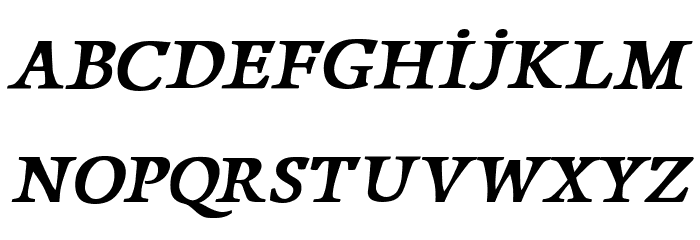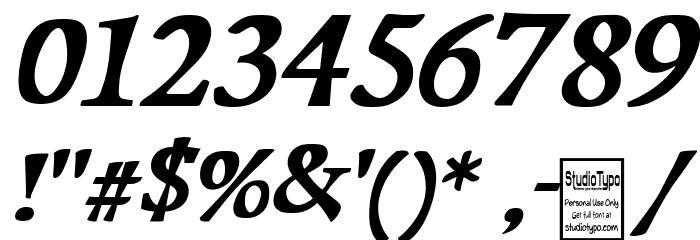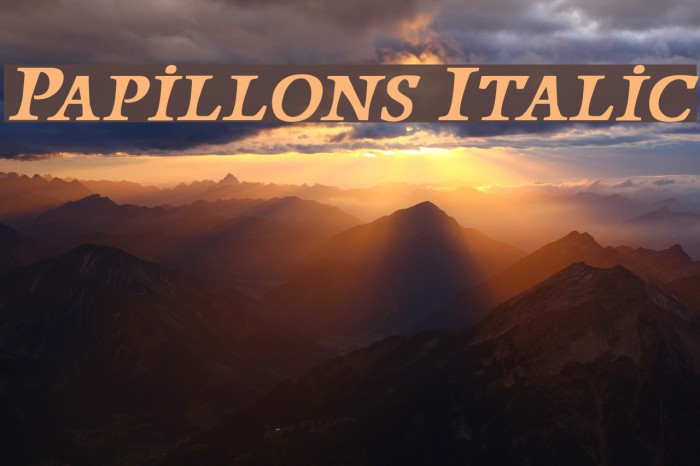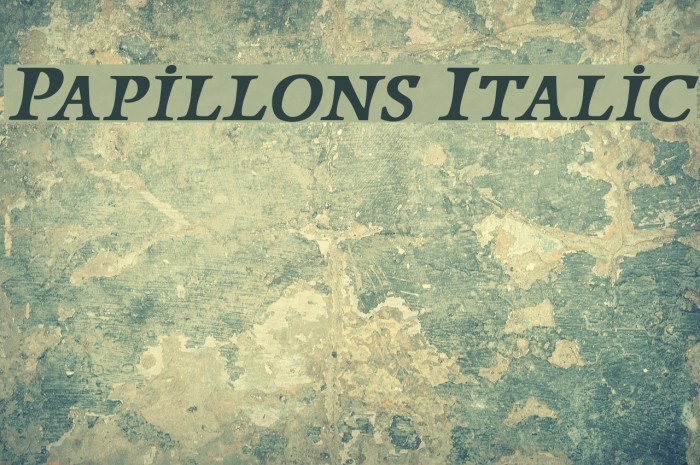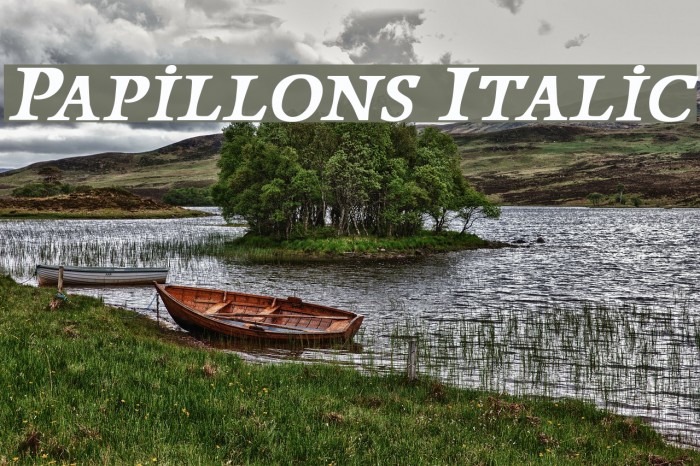
Papillons Italic Font
This font features a classic italic style with a strong, elegant presence. The letters are slightly slanted to the right, giving a sense of motion and sophistication. The strokes are smooth and consistent, with moderate contrast between thick and thin lines. The serifs are pronounced, adding a touch of formality and tradition. The numbers and special characters maintain the same elegant style, ensuring uniformity across all text elements. This font is well-suited for projects that require a touch of elegance and readability.
Elegant italic serif font with moderate contrast and pronounced serifs.
- Proposed Projects: Ideal for formal invitations, elegant branding, book covers, and editorial design.
- Overall Style: Classic